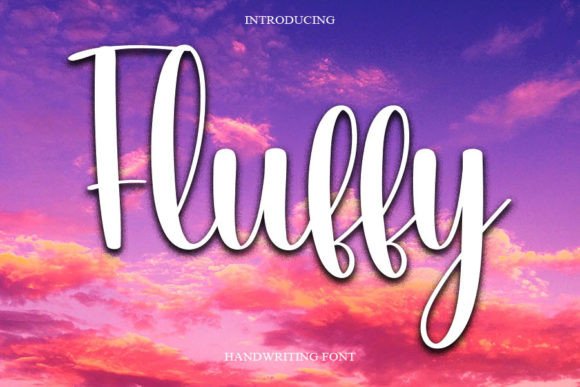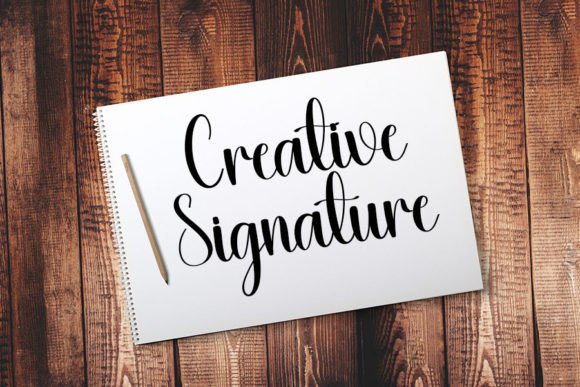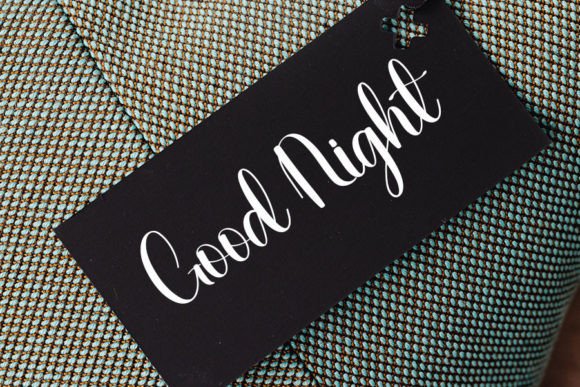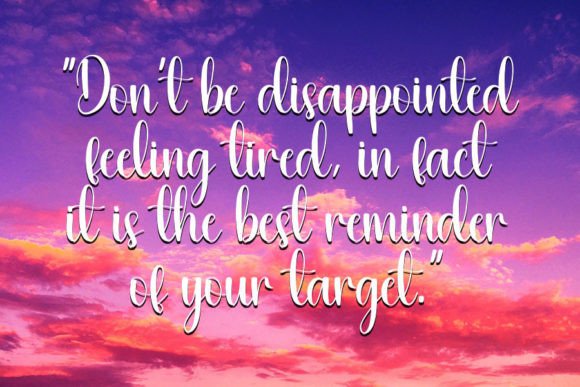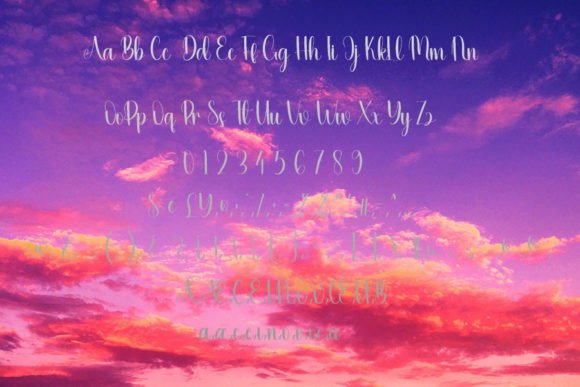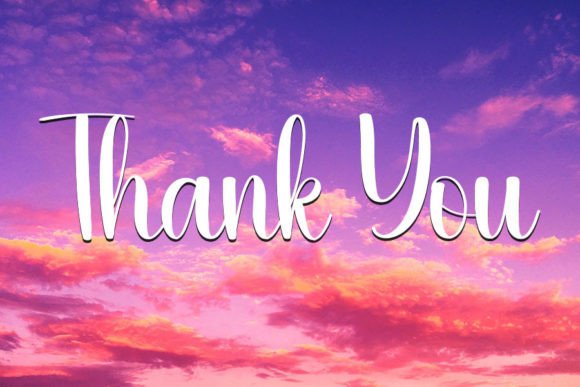
Fluffy Font
Fluffy Font is a light-hearted and cheerful handwritten typeface that adds a personal and welcoming touch to your creative work. With its rounded lines and relaxed structure, it offers a casual look that feels both fresh and friendly. Whether you’re designing for business or fun, Fluffy Font helps you communicate with clarity and charm.
Thanks to its warm and smooth letterforms, FluffyFont is a joy to use and easily captures attention without being too loud or dramatic. If you’re looking for a design element that balances playfulness and readability, this font is a fantastic choice.
FluffyFont is highly versatile and works beautifully in various creative settings. Try it for:
• Craft projects and scrapbook layouts
• Social media posts and quote graphics
• T-shirt designs, mugs, or product labels
• Invitations and playful printables
It’s also a great option for classroom materials, children’s content, and DIY designs that need a friendly vibe.
Features
• Fun, rounded handwritten style
• Uppercase and lowercase letters
• Full punctuation and multilingual support
• PUA encoded for easy access to special characters
Its ease of use and adaptability make it a top pick for both professional designers and hobbyists.